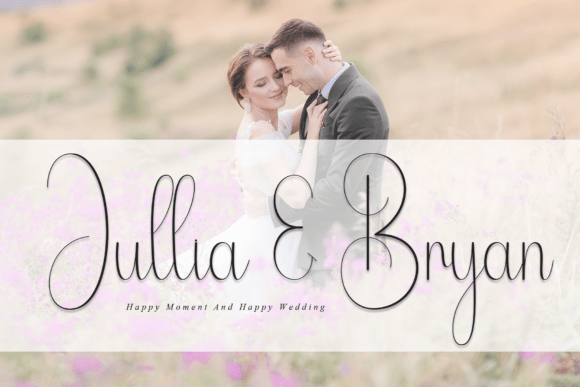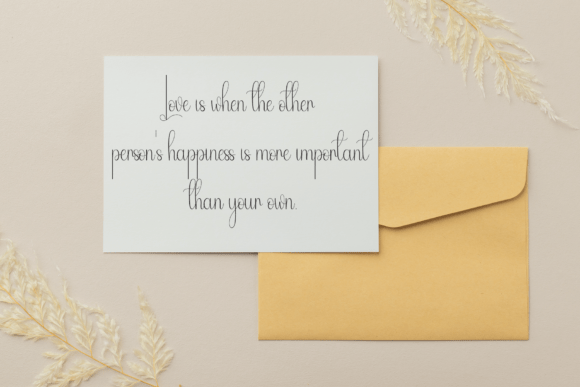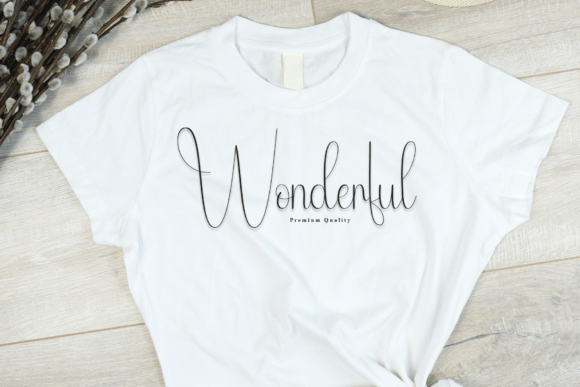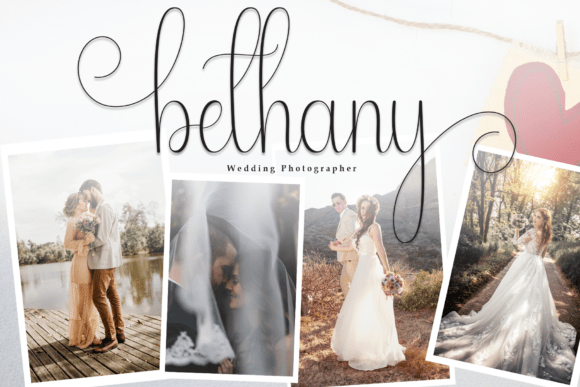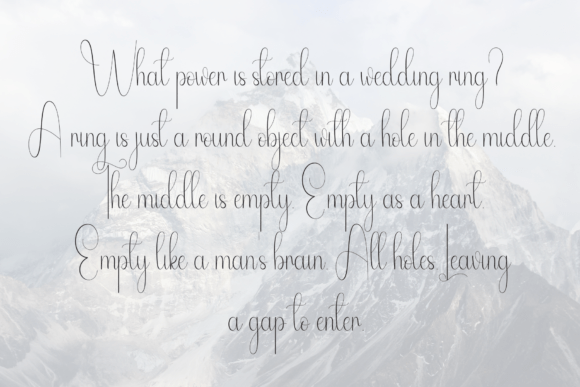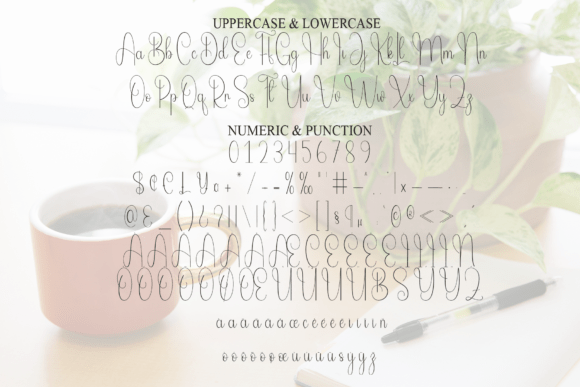
Adding a Touch of Elegance to Your Designs
There’s nothing quite like the feeling of bringing a design idea to life. You’ve poured your heart and soul into every detail, and suddenly, it all comes together in a beautiful, cohesive piece. But sometimes, no matter how hard you try, that one element just isn’t quite right. That’s where the right font can make all the difference – and for many designers, that font is the Daily Font.
| 📌 Product Name | Daily Font |
A stylish handwritten script font, Daily Font radiates elegance and fluidity, with smooth, flowing strokes that create a natural and sophisticated feel. Whether you’re working on a branding project, designing an invitation, or tackling a creative endeavor, this typeface adds a personal, artistic touch that sets your work apart. With its perfect balance of charm and modernity, Daily Font is a valuable addition to any designer’s toolkit.
Daily Font Key Features
- Unique Character Set: Daily Font features a unique character set, including extended Latin, Greek, and Cyrillic scripts, making it suitable for global design projects.
- Font Weight and Style: Daily Font is available in multiple font weights, from Light to Bold, and various styles, including Regular, Italic, and Oblique, providing flexibility for designers.
- OpenType Features: Daily Font supports advanced OpenType features, such as ligatures, swashes, and ornaments, allowing designers to add creative flair to their work.
Review of Daily Font
As a designer, I’ve had the chance to work with Daily Font, and here are my honest thoughts on it. ✨ One thing that really stands out is the clean and minimalistic aesthetic of the font. It’s perfect for modern designs and can be used for a wide range of projects, from websites to social media graphics.
Another aspect I appreciate is the flexibility of the font. It comes in various weights and styles, making it easy to adjust to different design needs. The font also supports multiple languages, which is a big plus for global designs.
However, there are a few limitations ⚠️ to consider. One major issue is the font’s readability at smaller sizes. It can become pixelated and difficult to read, especially on screens with lower resolutions. Additionally, the font’s style may not be suitable for all types of projects, such as traditional or formal designs.
Overall, I think Daily Font is a solid choice for designers who want a modern and versatile font. While it may not be perfect, its strengths outweigh its limitations, making it a great addition to any design toolkit.
Pros and Cons:
- ✨ Clean and minimalistic aesthetic
- ✨ Flexible and adjustable weights and styles
- ✨ Supports multiple languages
- ⚠️ May become pixelated at smaller sizes
- ⚠️ Not suitable for traditional or formal designs
To get the most out of Daily Font, use it in combination with bold and italic text to create visually appealing headings and subheadings.
Experiment with different font sizes and colors to create a unique look and feel.
Daily Font is perfect for creating social media graphics, blog posts, and presentations.
Use it to add a touch of elegance and sophistication to your designs.